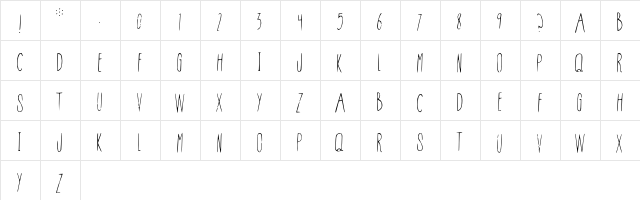
Conspiracy Regular
Design Context for Conspiracy Typeface
Conspiracy is a composed and adaptable typeface that performs quietly and consistently across a wide range of design contexts.